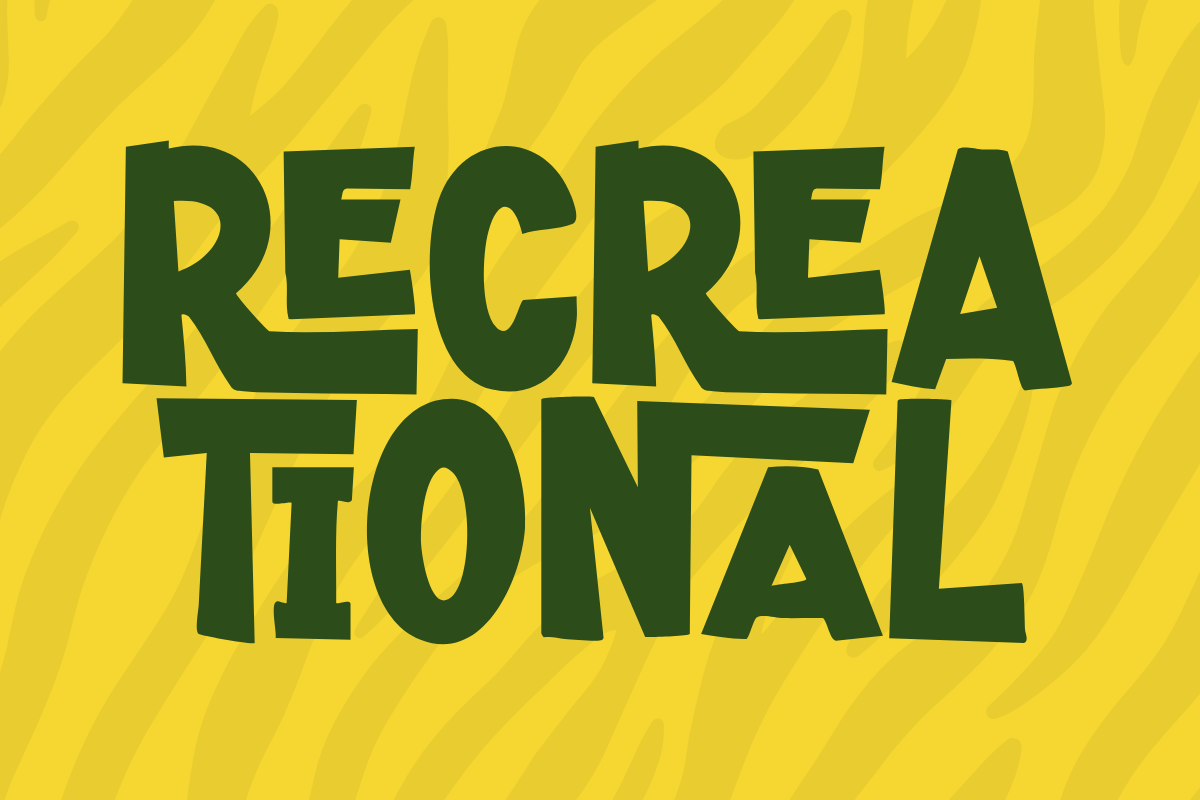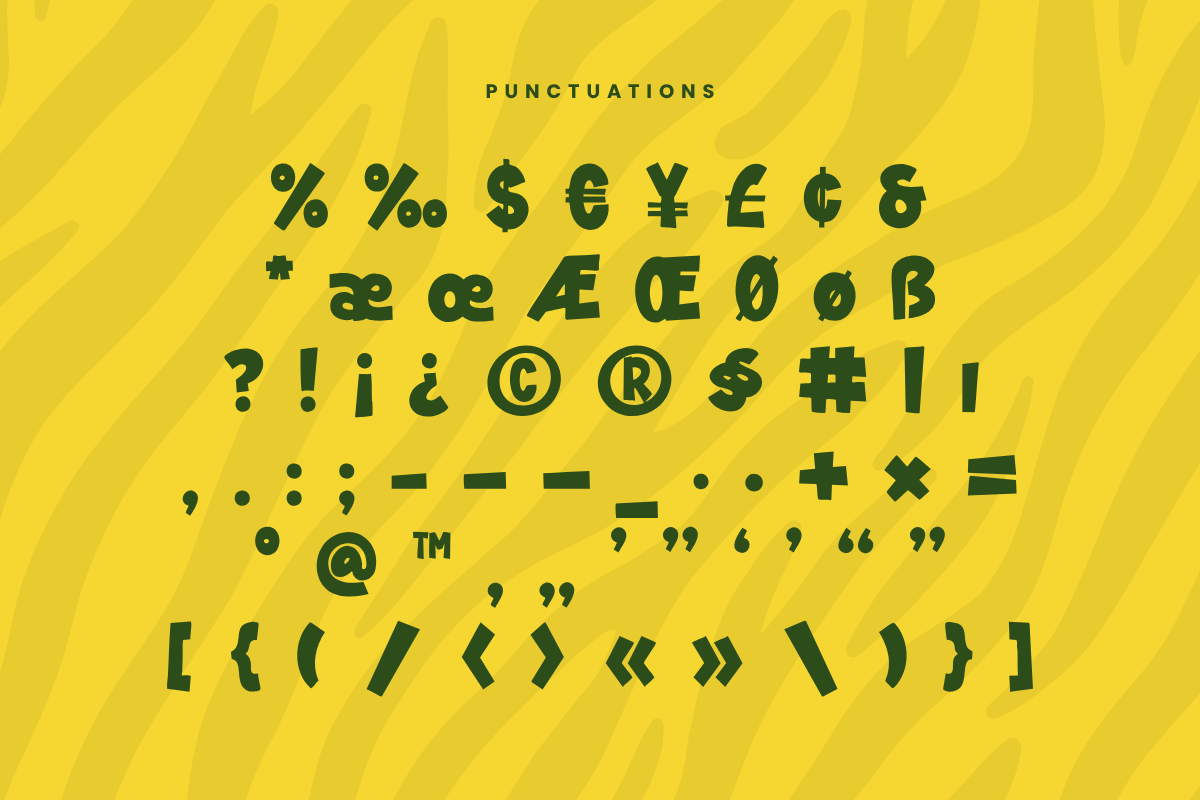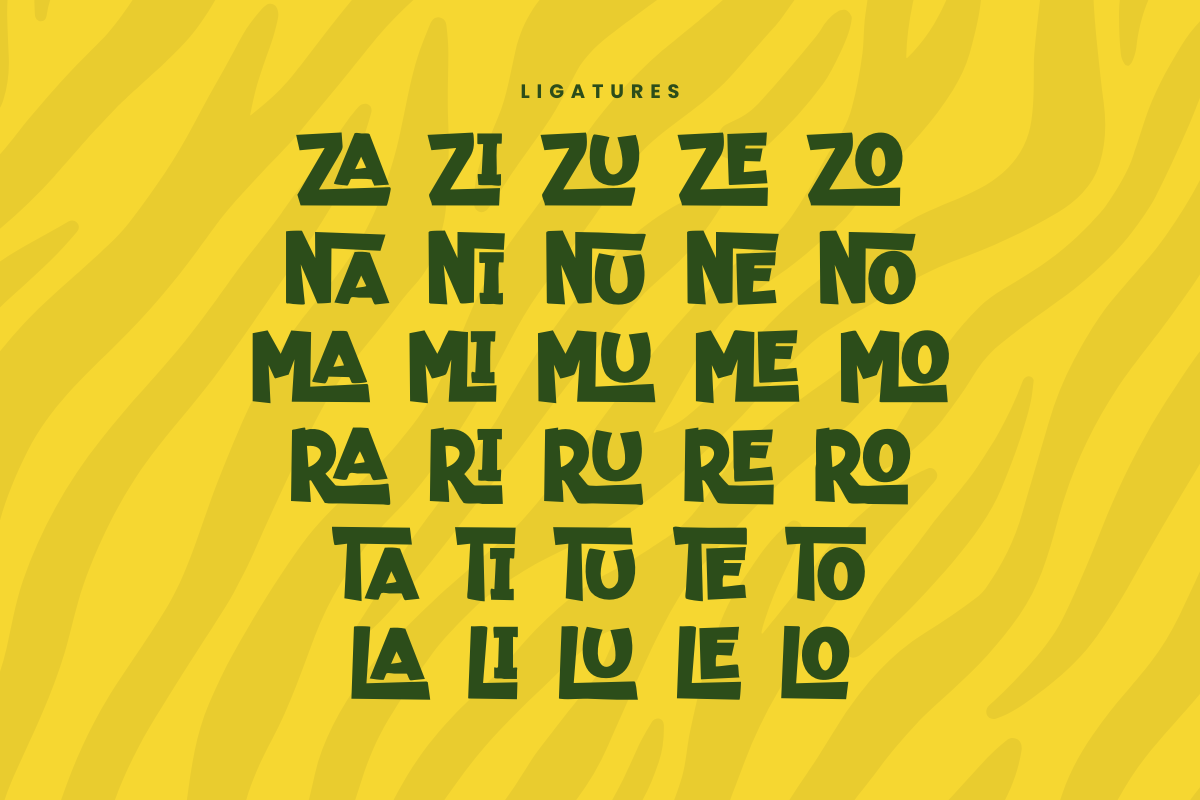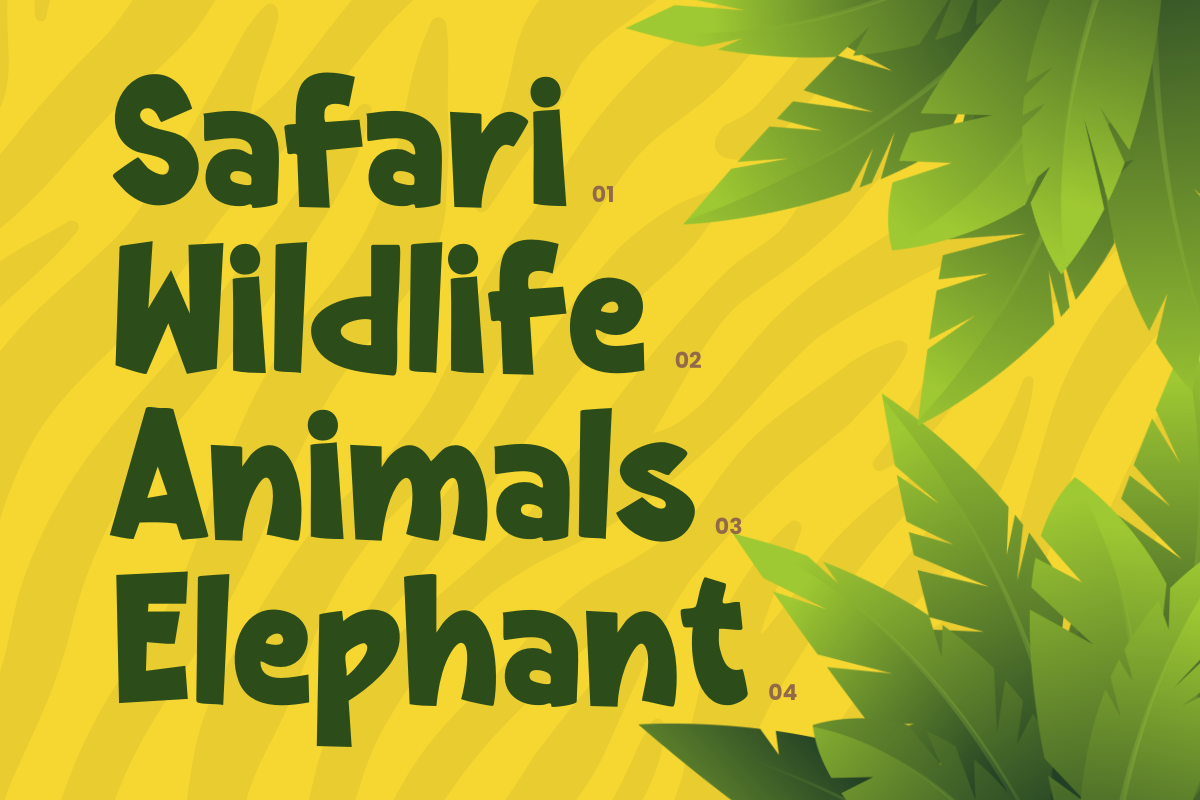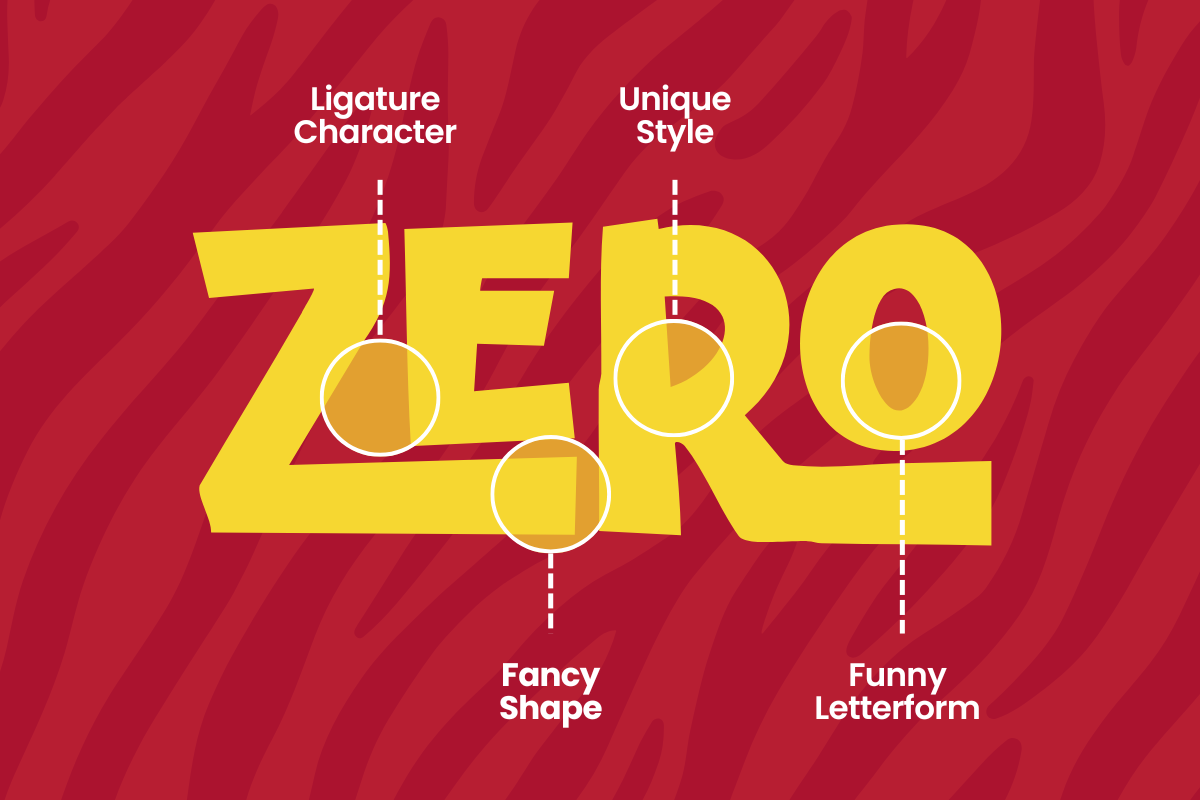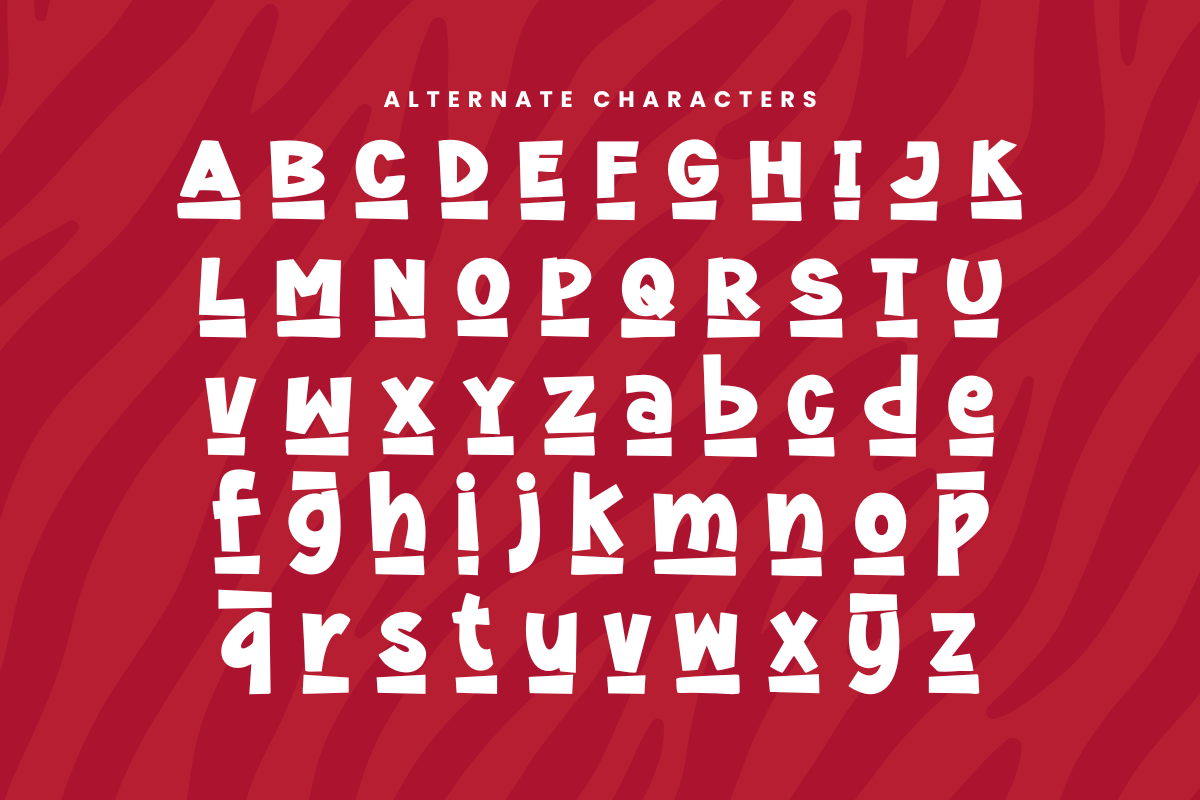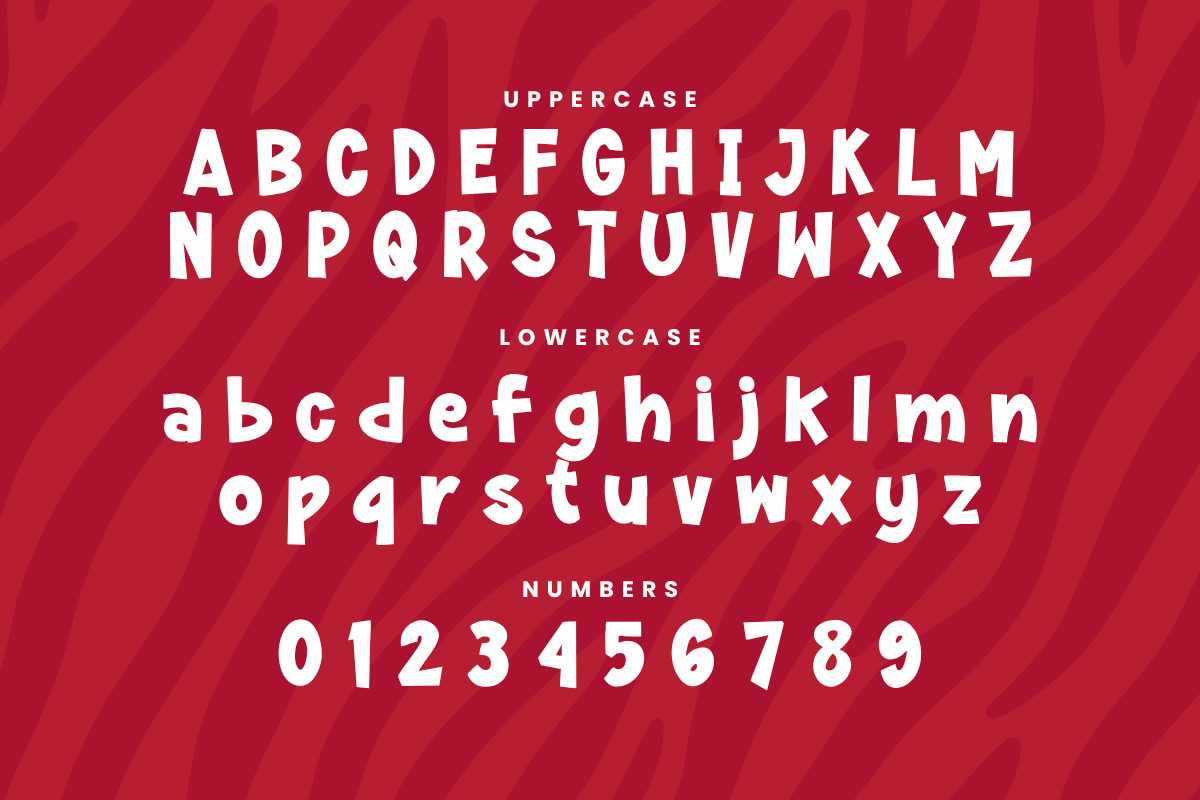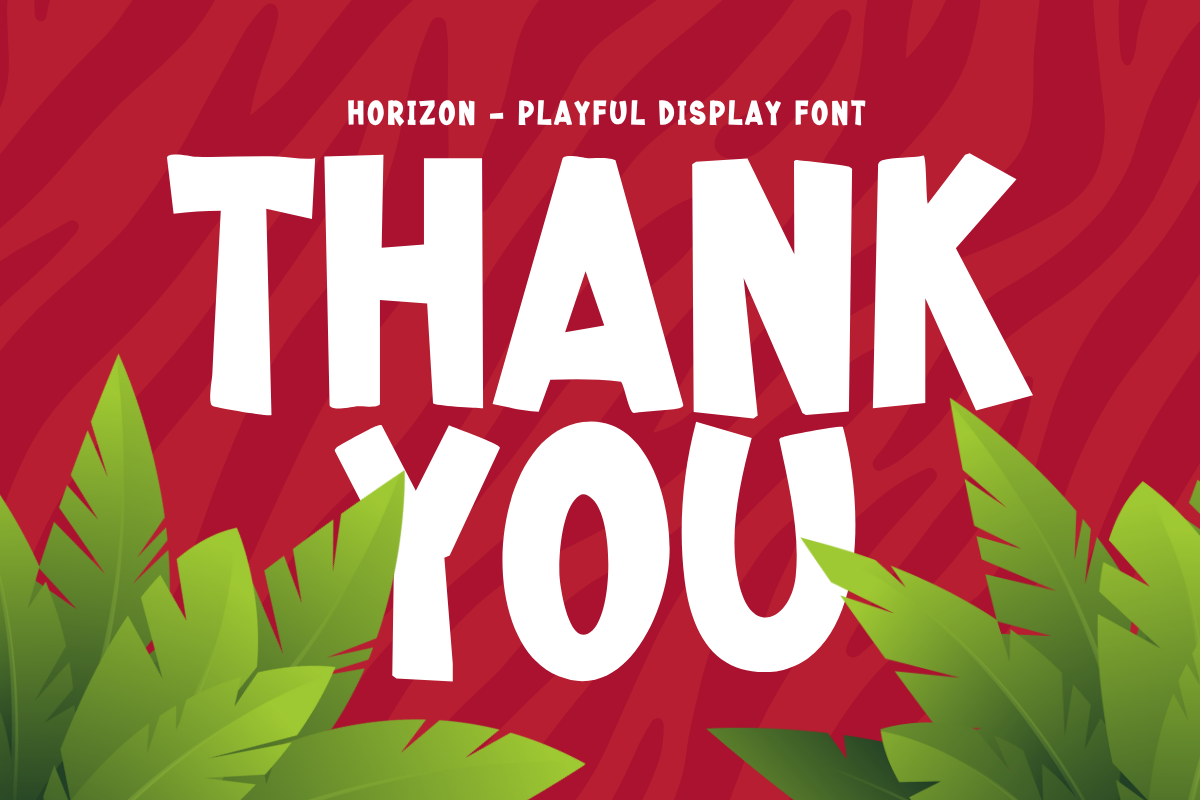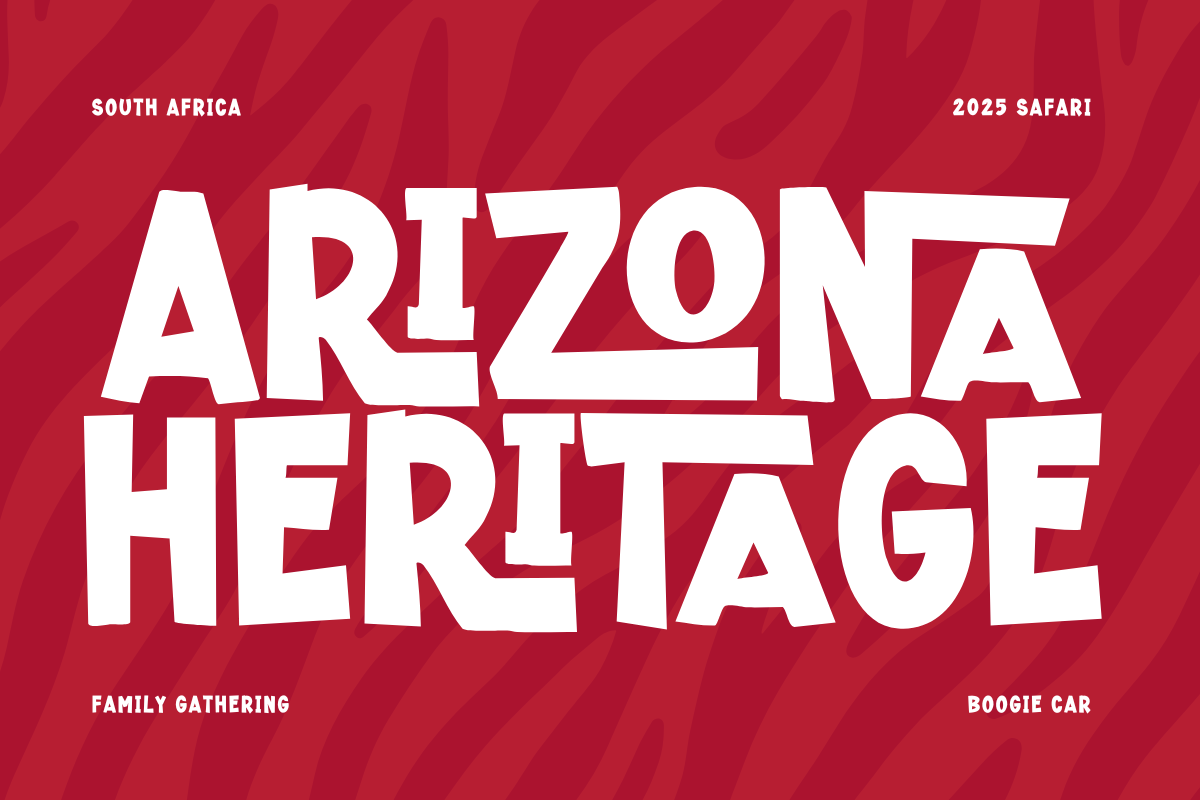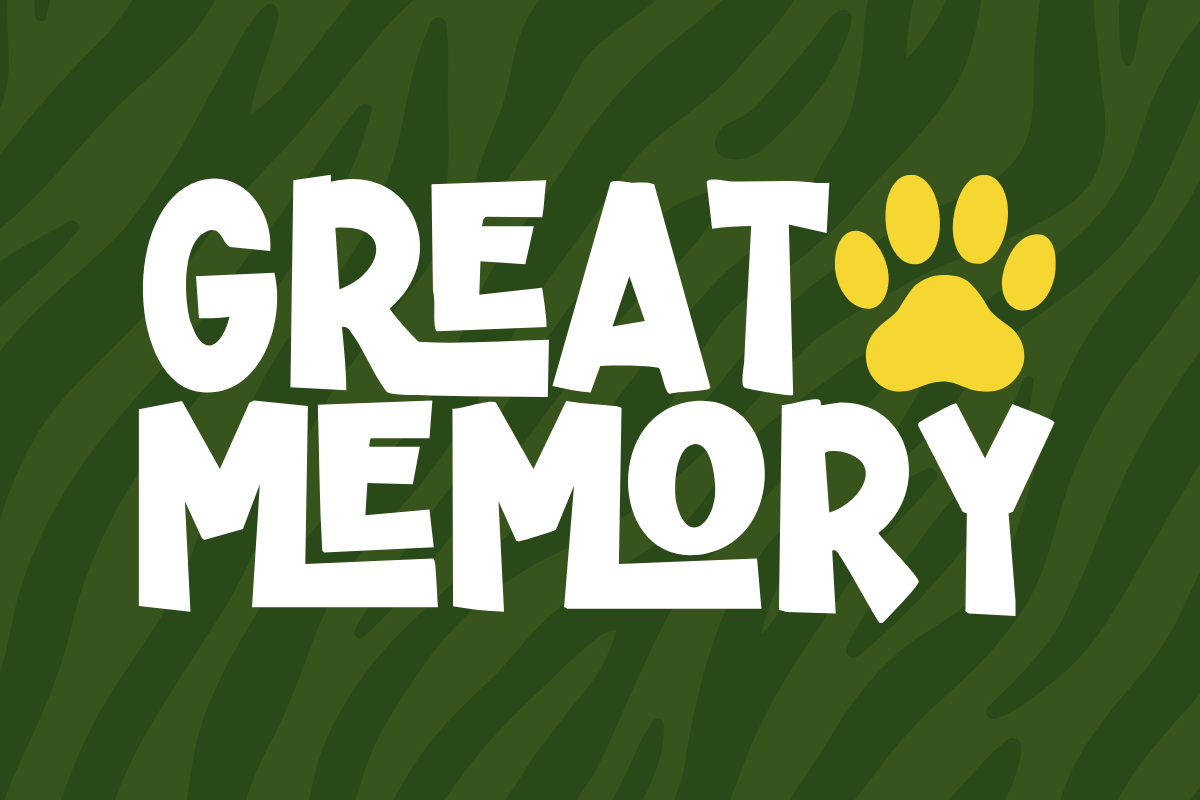
Zurambi – Adventure Display Font
Zurambi is a bold and distinctive display font inspired by the spirit of exploration, nature, and creative adventure. Designed with strong shapes, dynamic curves, and a handcrafted feel, Zurambi brings an organic yet confident character to your typography. This font is perfect for outdoor branding, adventure-themed designs, posters, packaging, apparel, game titles, and creative projects that need a powerful and expressive visual presence. Zurambi delivers versatility and impact, making it an excellent choice for designers who want a display font that feels energetic, natural, and visually striking without losing clarity.
Additional Accents
64 Languages
Kerning